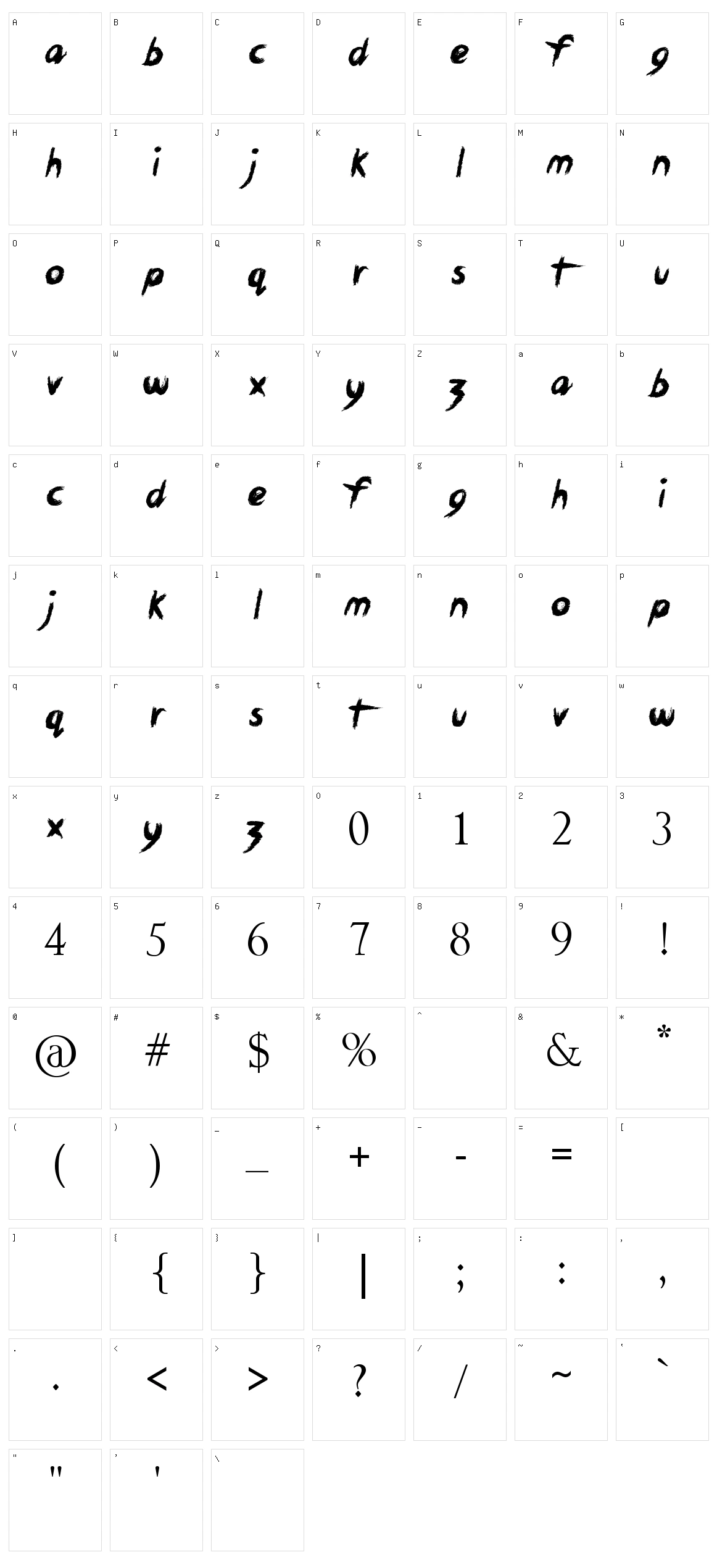
The free font xxx Dirty Jokes xxx is carefully designed by JSH creates, showcasing a thoughtful balance of creativity and usability and falls under the Trash font style. When you download the ZIP file, it contains only 87.18 KB of font files, making it lightweight and quick to download. Please review the license details below to understand permitted usage and distribution rights. If license information is not available, we recommend using this font for personal projects only or contacting the author directly for commercial usage permissions.